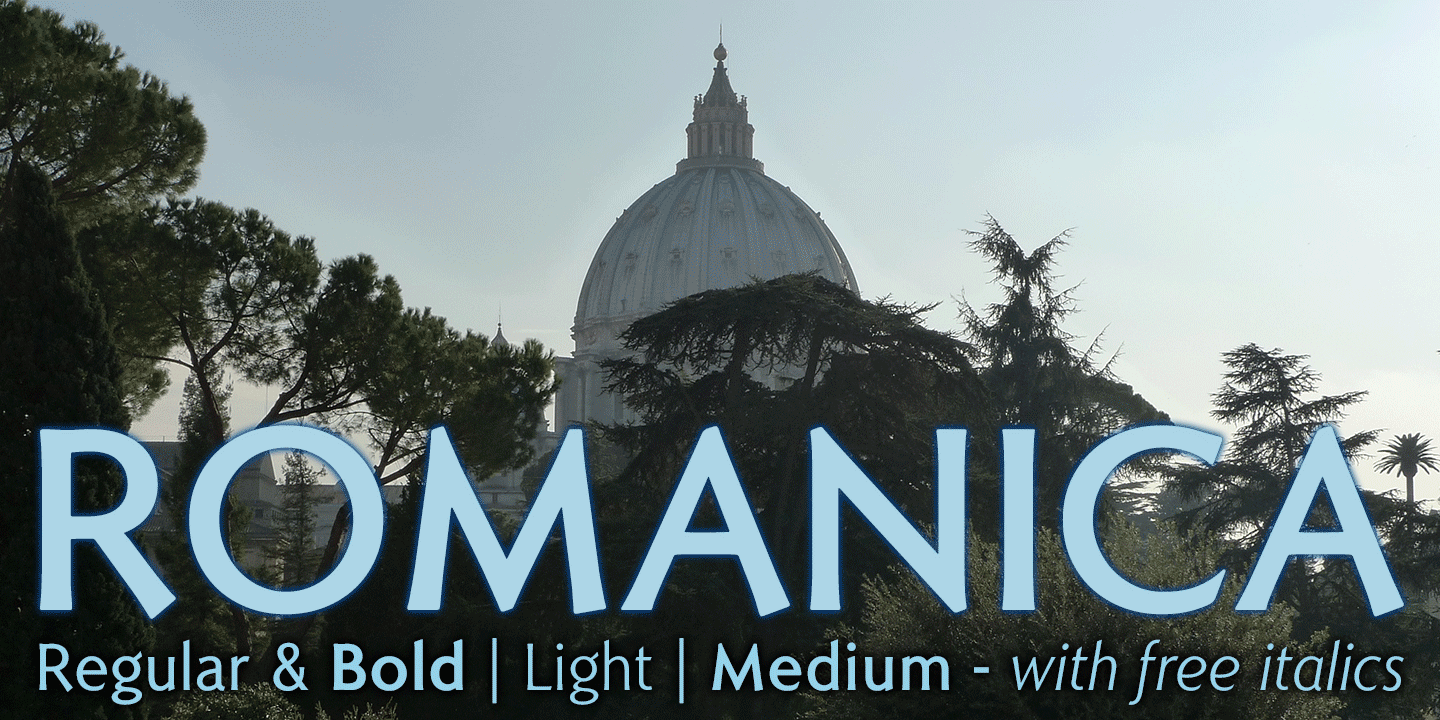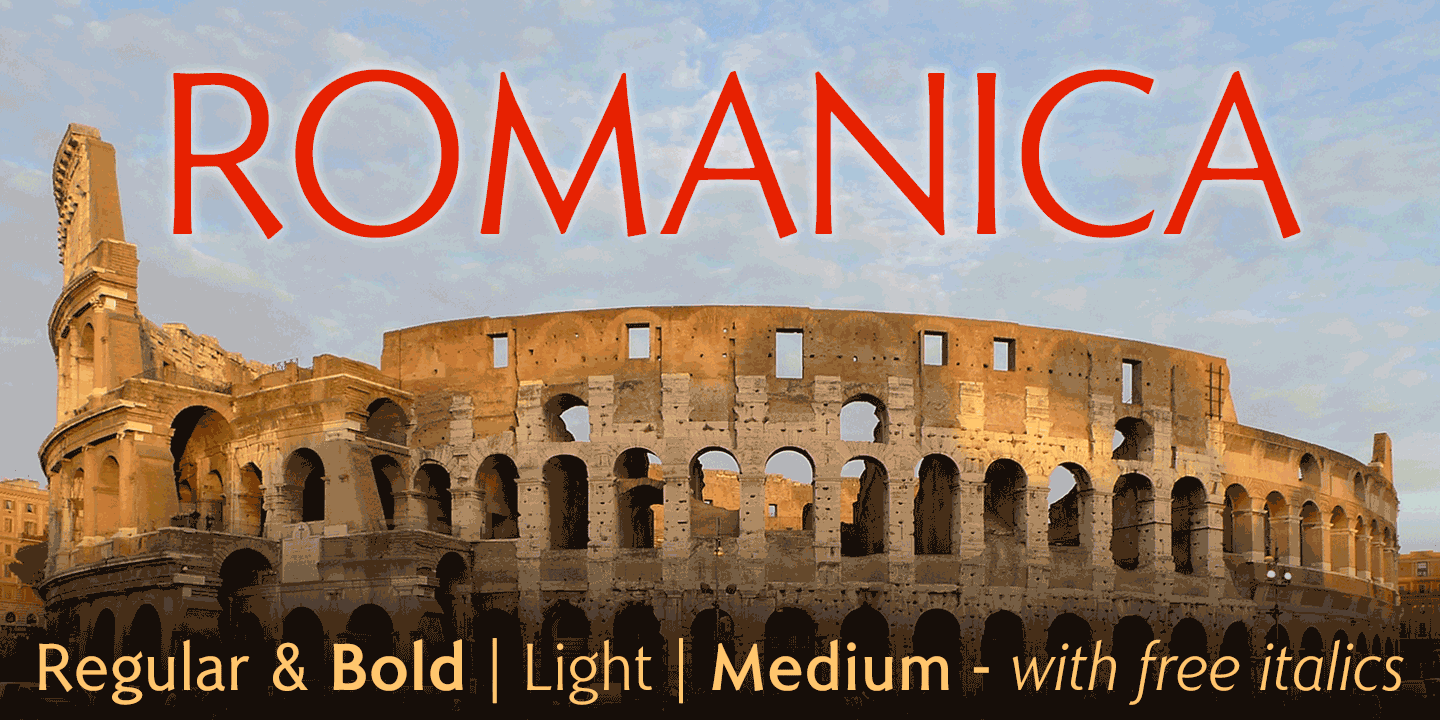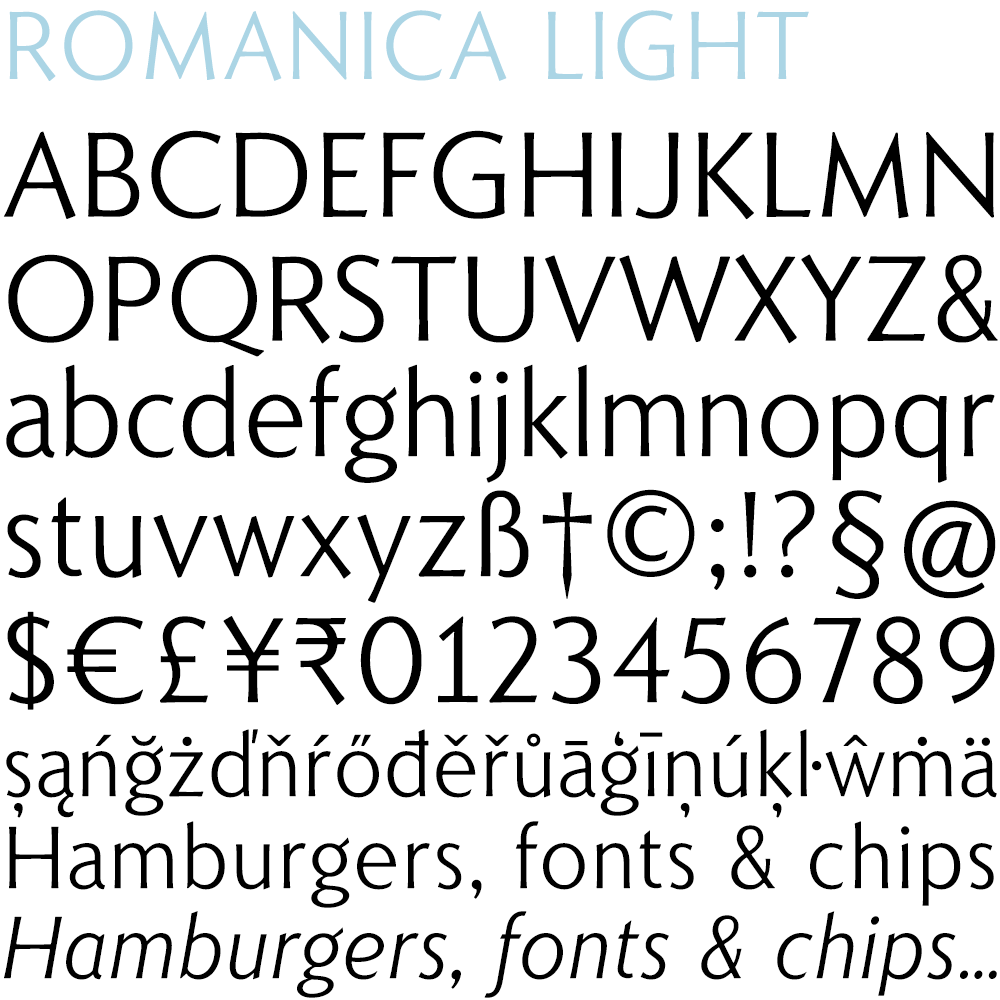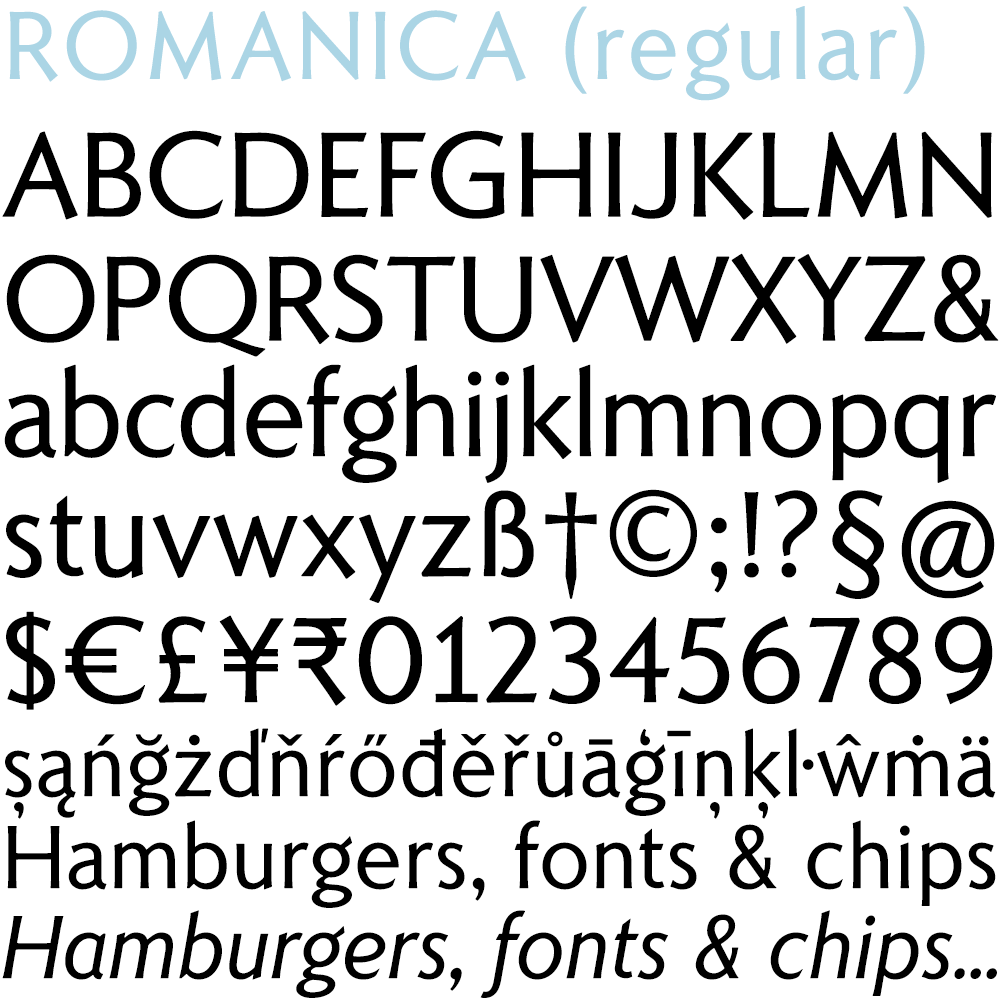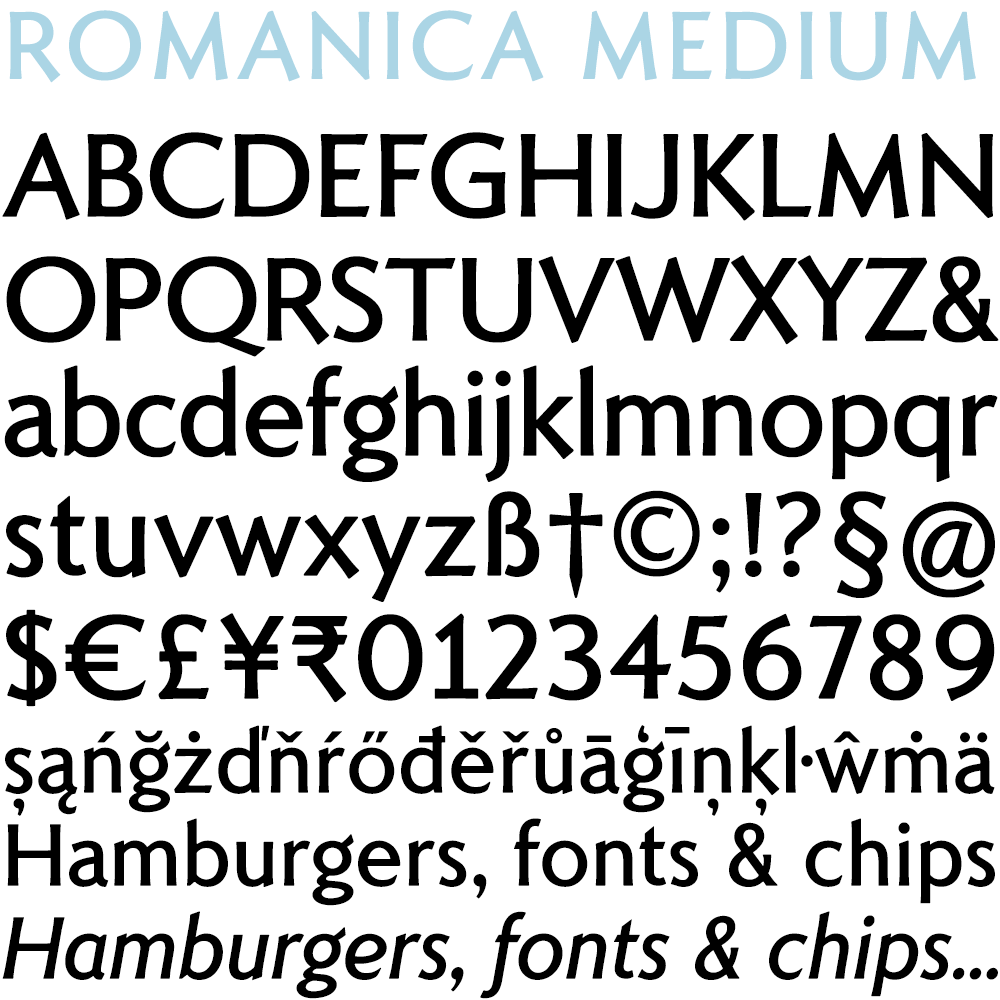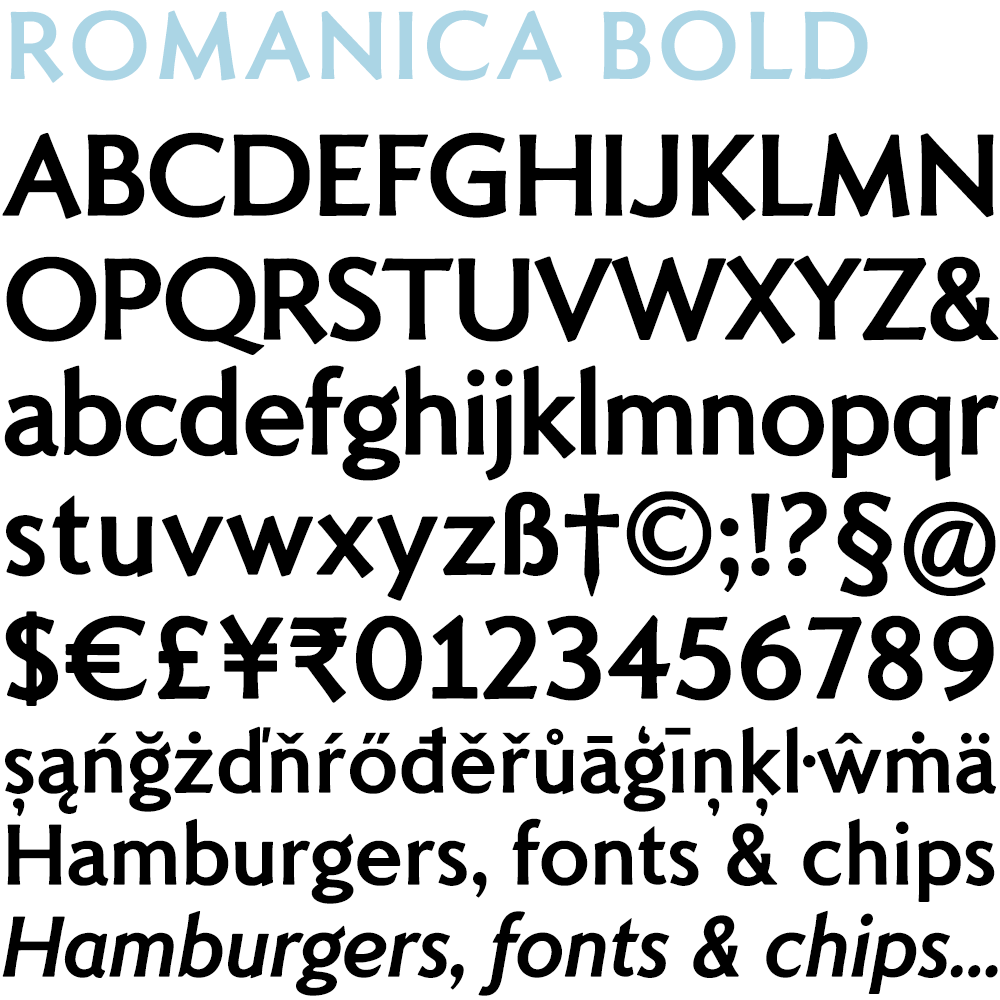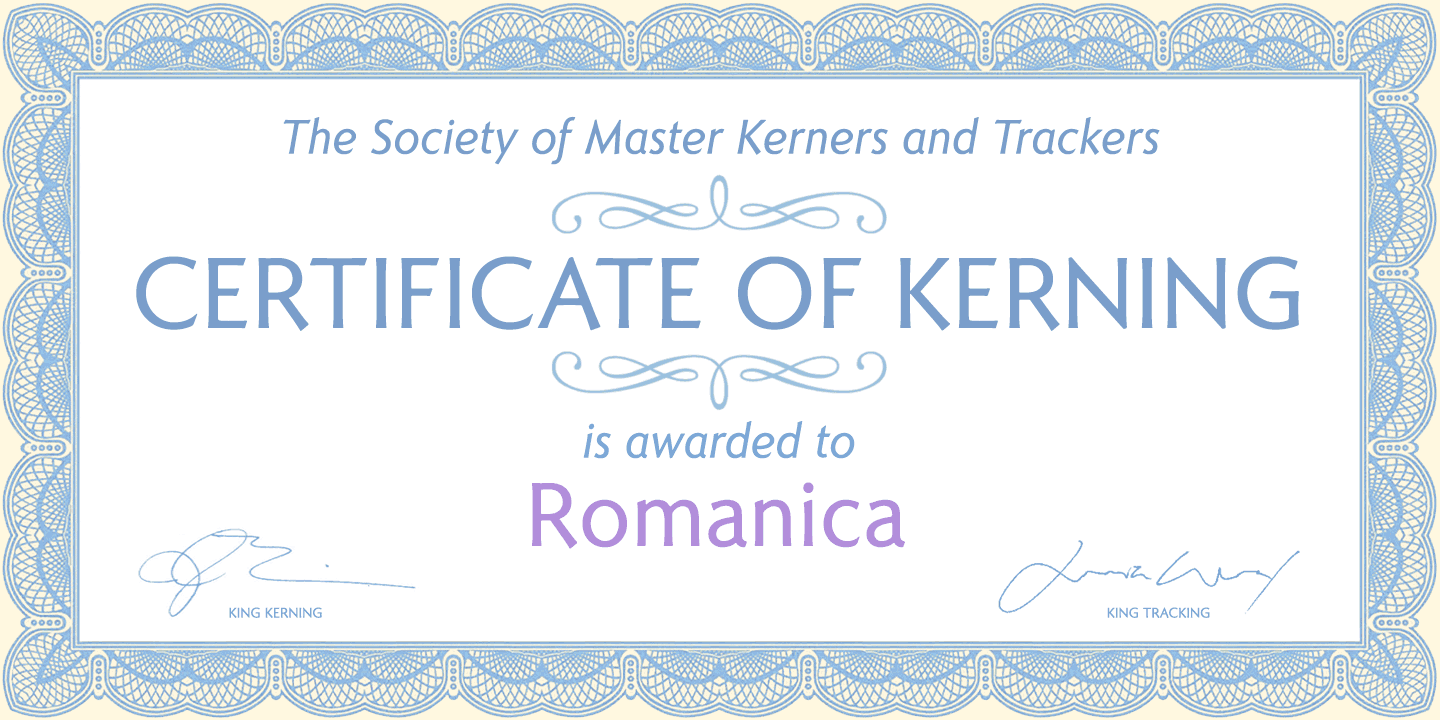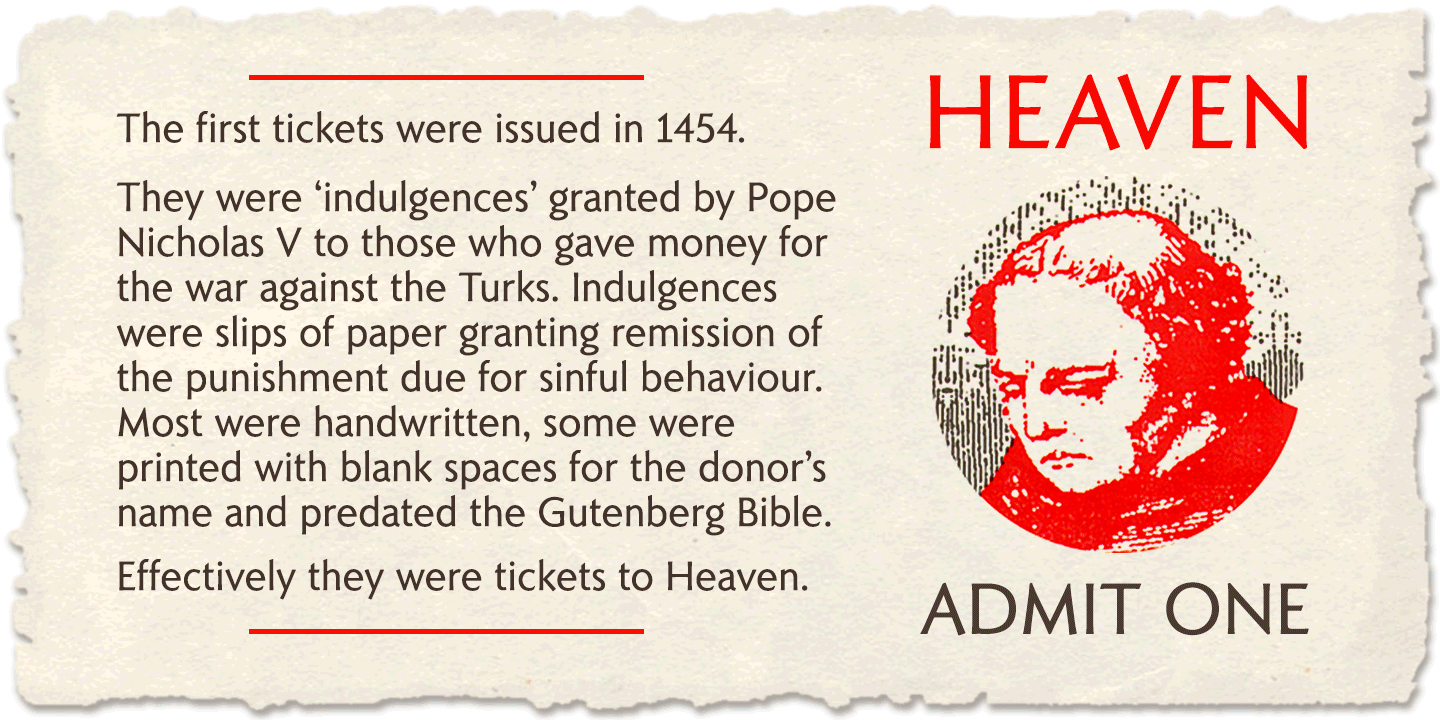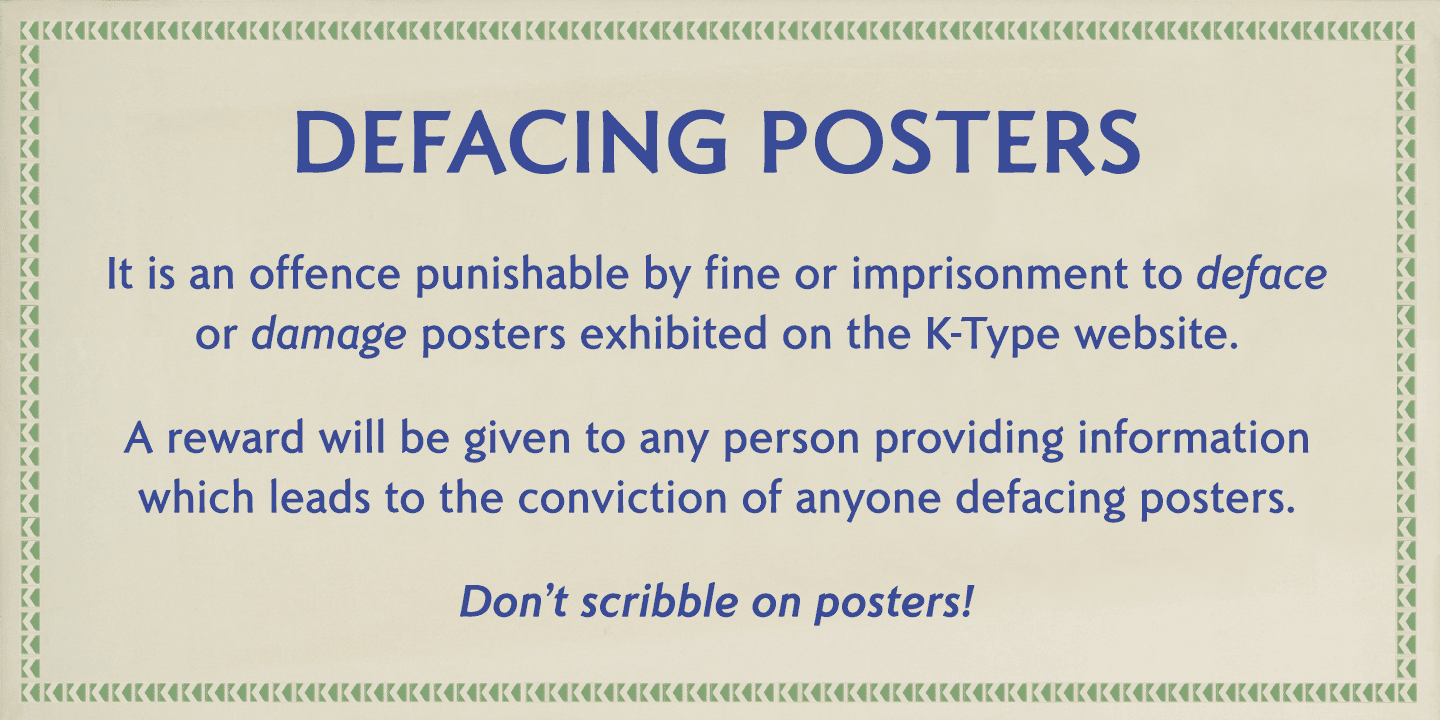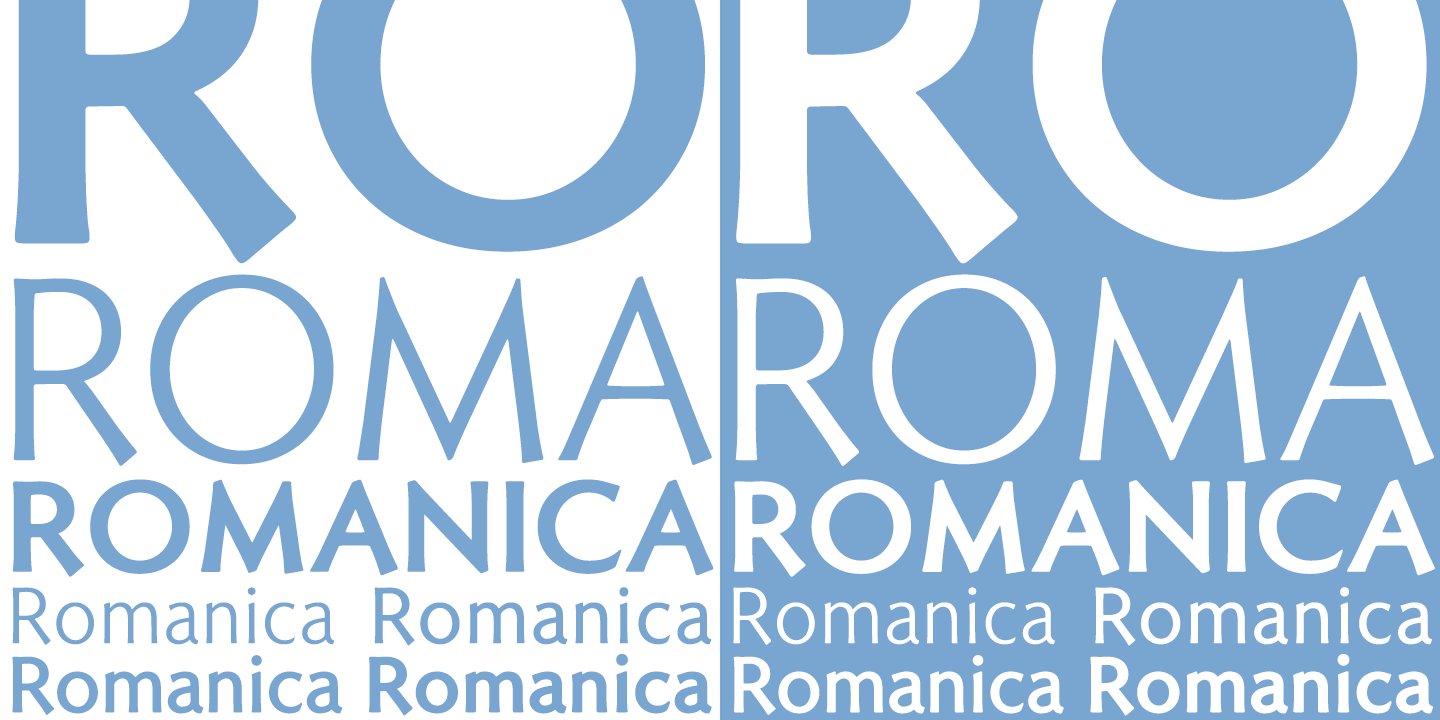
Romanica
Romanica is a relaxed humanist sans with subtly curved corners and slightly flared glyphic terminals that are expressively angled where appropriate. Romanica has the authority of the ages without the harshness of many classically inspired typefaces.
All eight fonts include a full complement of Latin Extended-A characters, Welsh diacritics, Irish dotted consonants, and additional oldstyle numerals.